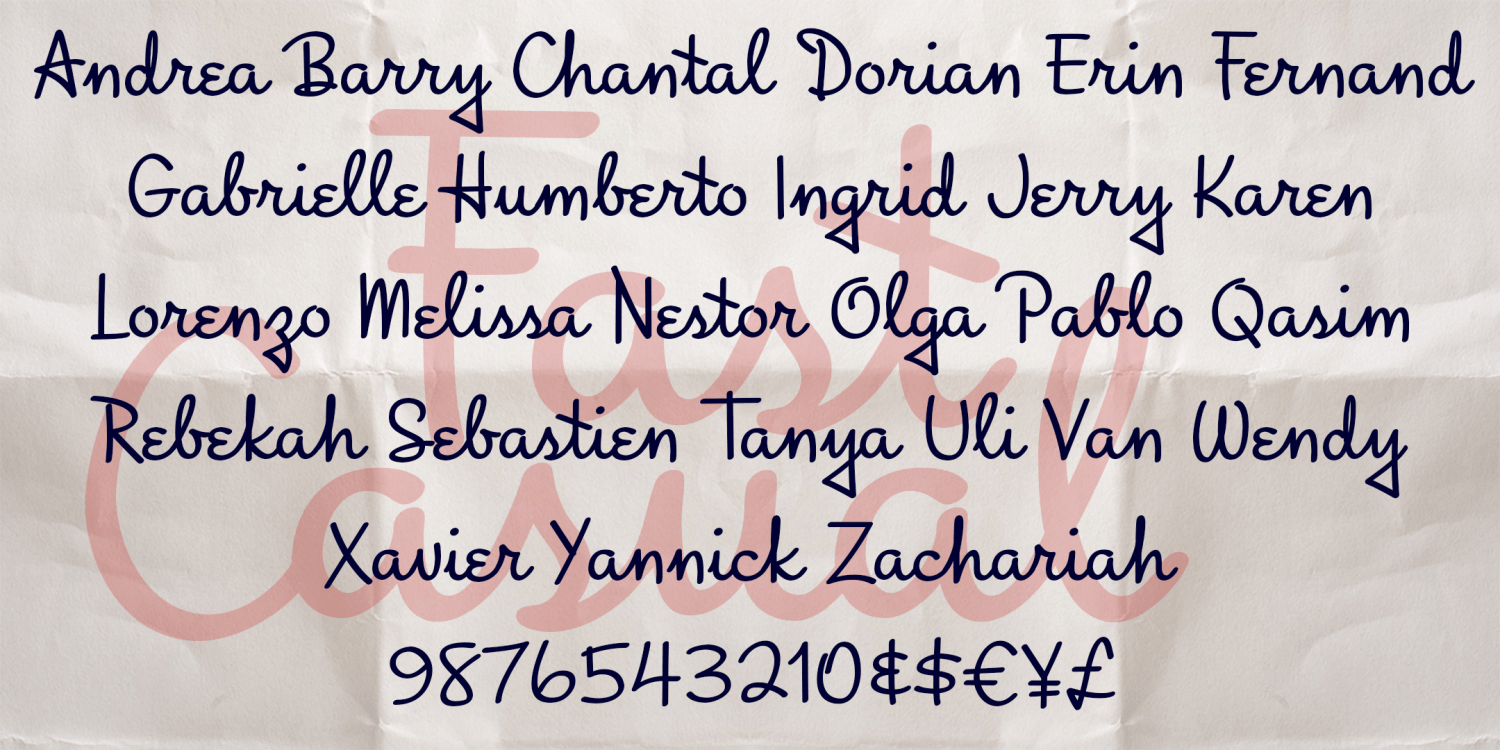
Fast Casual
FAST CASUAL looks like the cursive handwriting of a smart and creative individual who takes pride in their writing, but they also includes many quirky touches to show their personality. Fast Casual was inspired by the hand-lettered titles of the trailer…